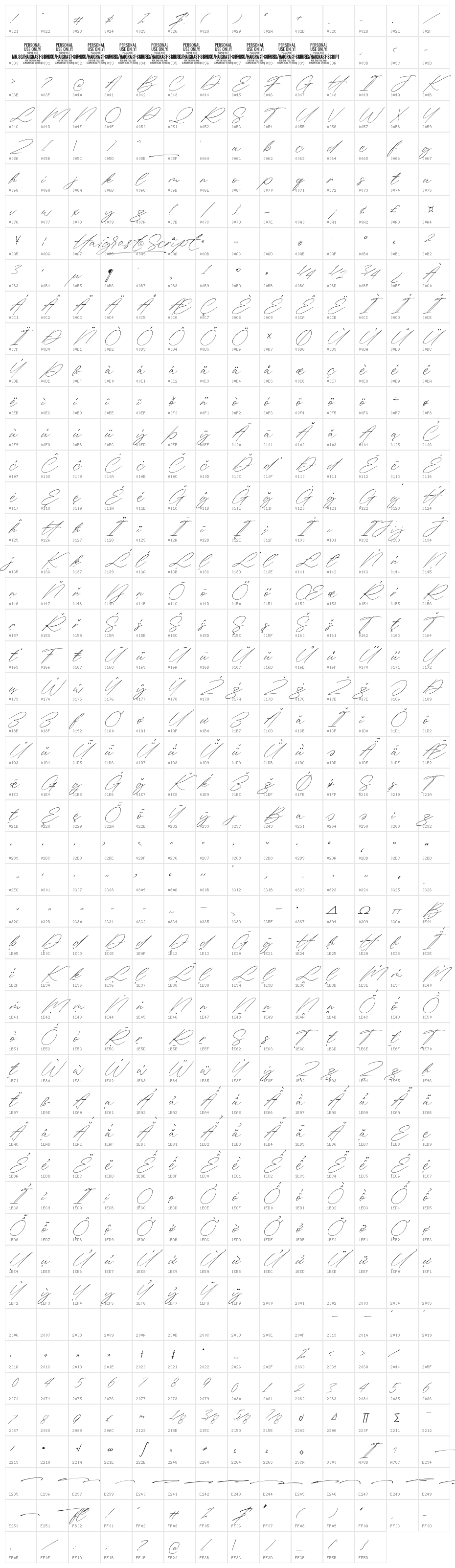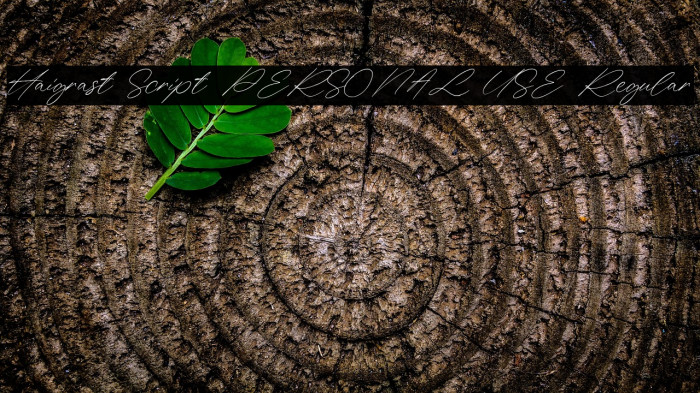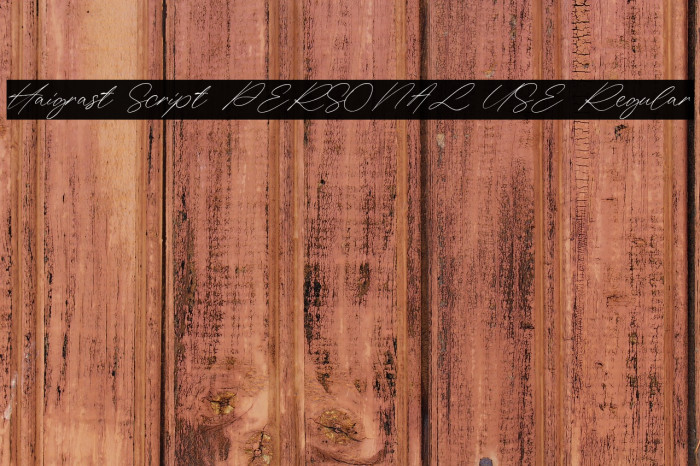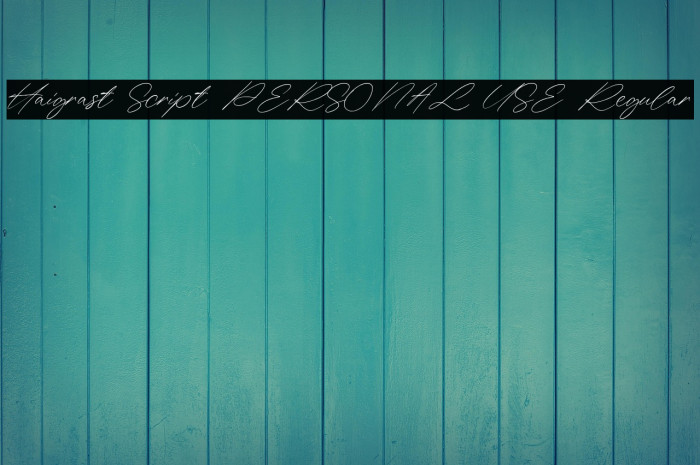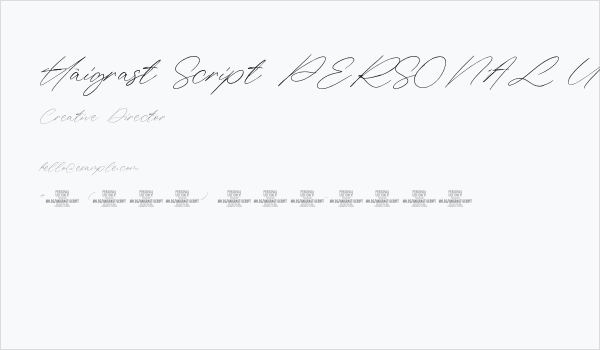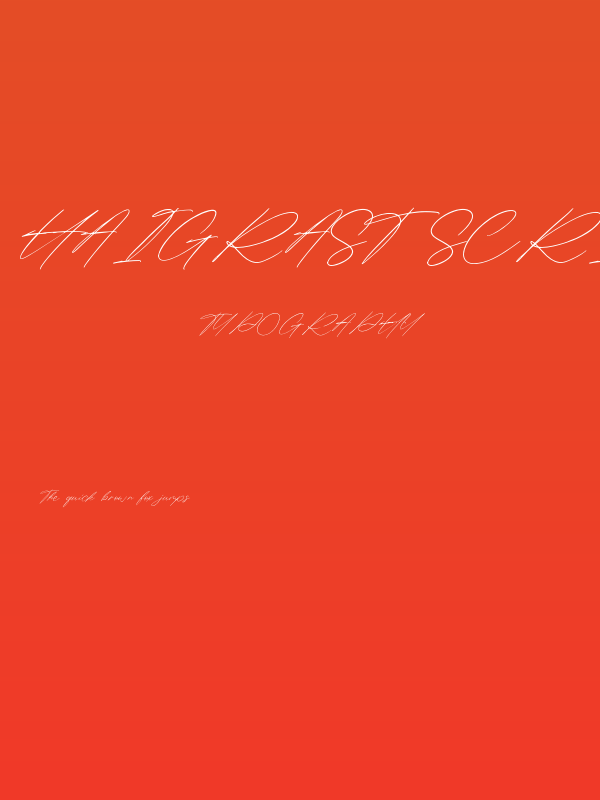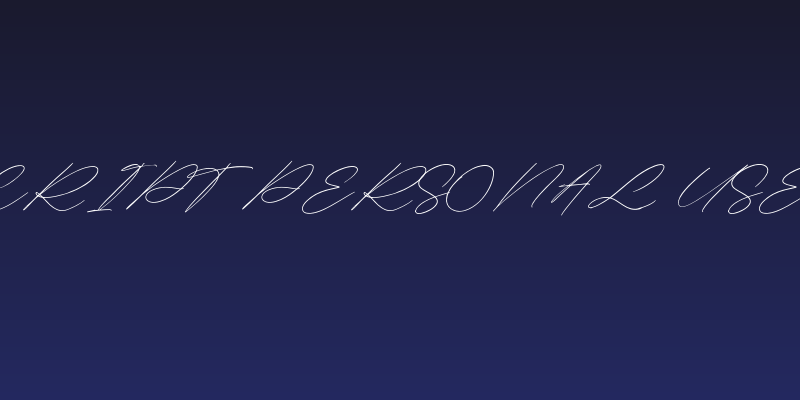
Haigrast Script PERSONAL USE Regular Font
Haigrast Script PERSONAL USE Regular Description
This font features an elegant and flowing script style, characterized by its fluid, cursive letterforms that mimic natural handwriting. The strokes are smooth and continuous, with a slight slant that adds to its graceful appearance. The uppercase letters are distinguished by their tall, sweeping ascenders, while the lowercase letters maintain a consistent baseline with gentle curves. The font's overall design exudes sophistication and charm, making it suitable for projects that require a personal and artistic touch. The special characters are seamlessly integrated, maintaining the font's cohesive style.
| Overall Style | Elegant, Artistic |
| Proposed Projects | Ideal for wedding invitations, greeting cards, personal branding, and artistic projects. |